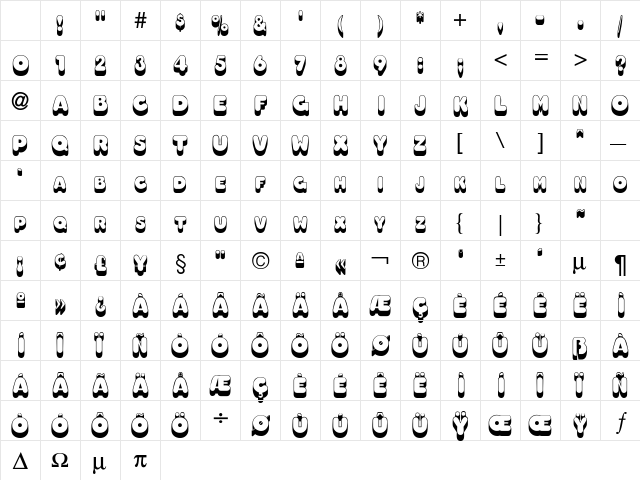
Complete OleadaShadowSCapsSSK Bold glyph index. Displaying only characters natively supported by OleadaShadowSCapsSSK Bold font.
OleadaShadowSCapsSSK is built around its visual character rather than neutral utility - its distinctive forms are designed to make an impression at display sizes. Its bold stroke weight gives it real presence on the page.
Font Pairing: Pair with a clean neutral sans-serif for body copy to let OleadaShadowSCapsSSK's character lead without overwhelming the composition.
Pro Tip: Use OleadaShadowSCapsSSK exclusively at display sizes - it was designed to be seen, not read at length. Let a neutral companion handle body copy.